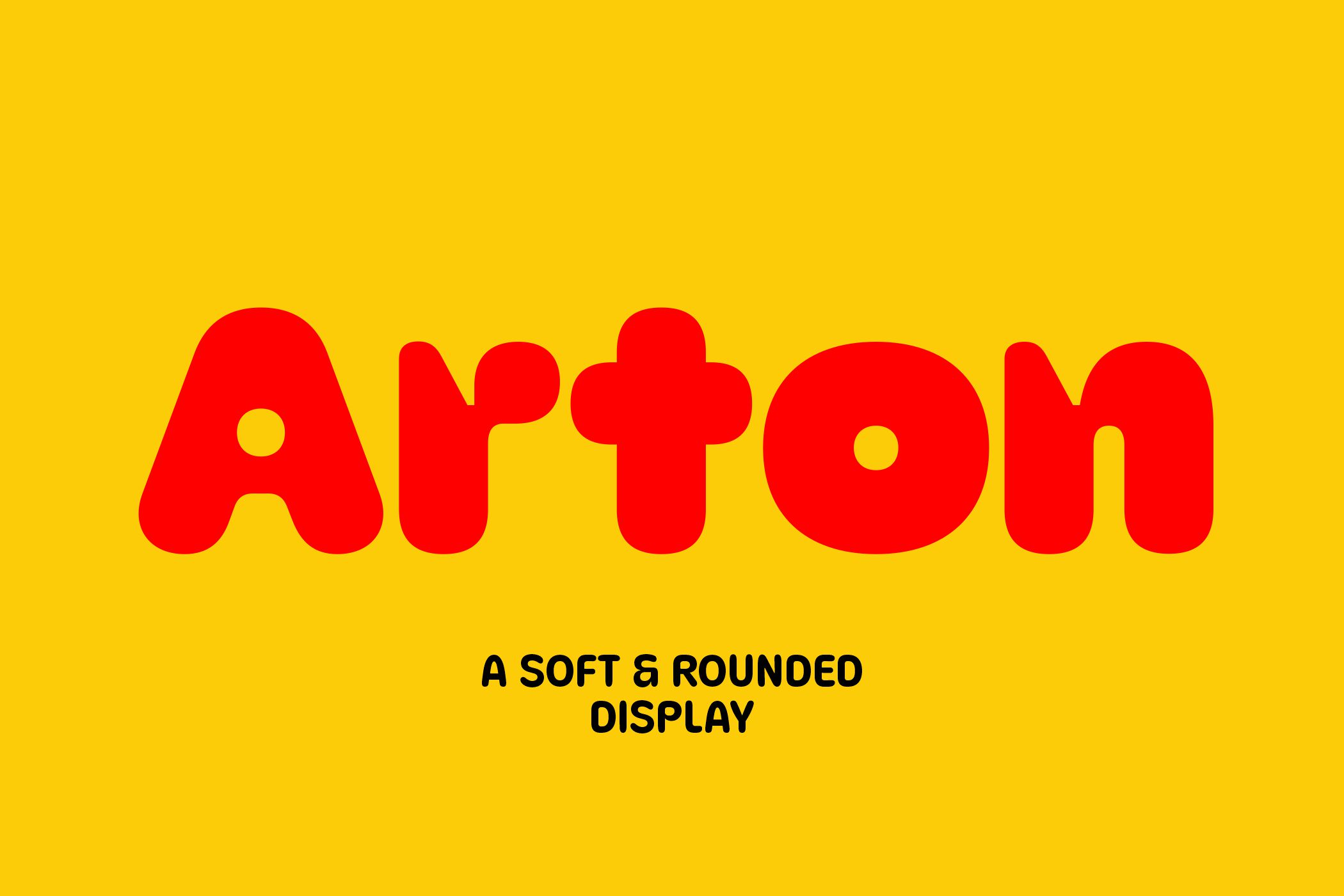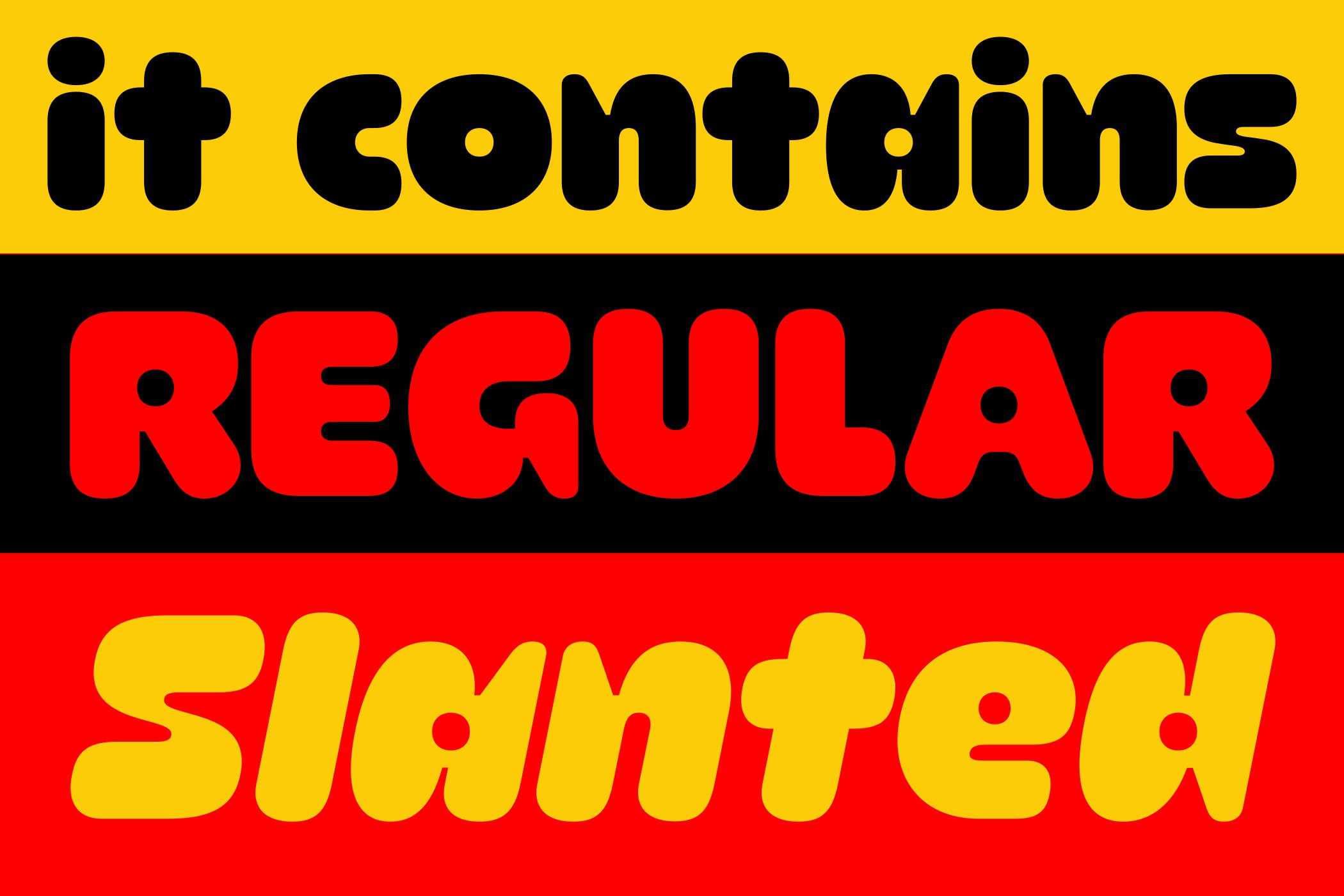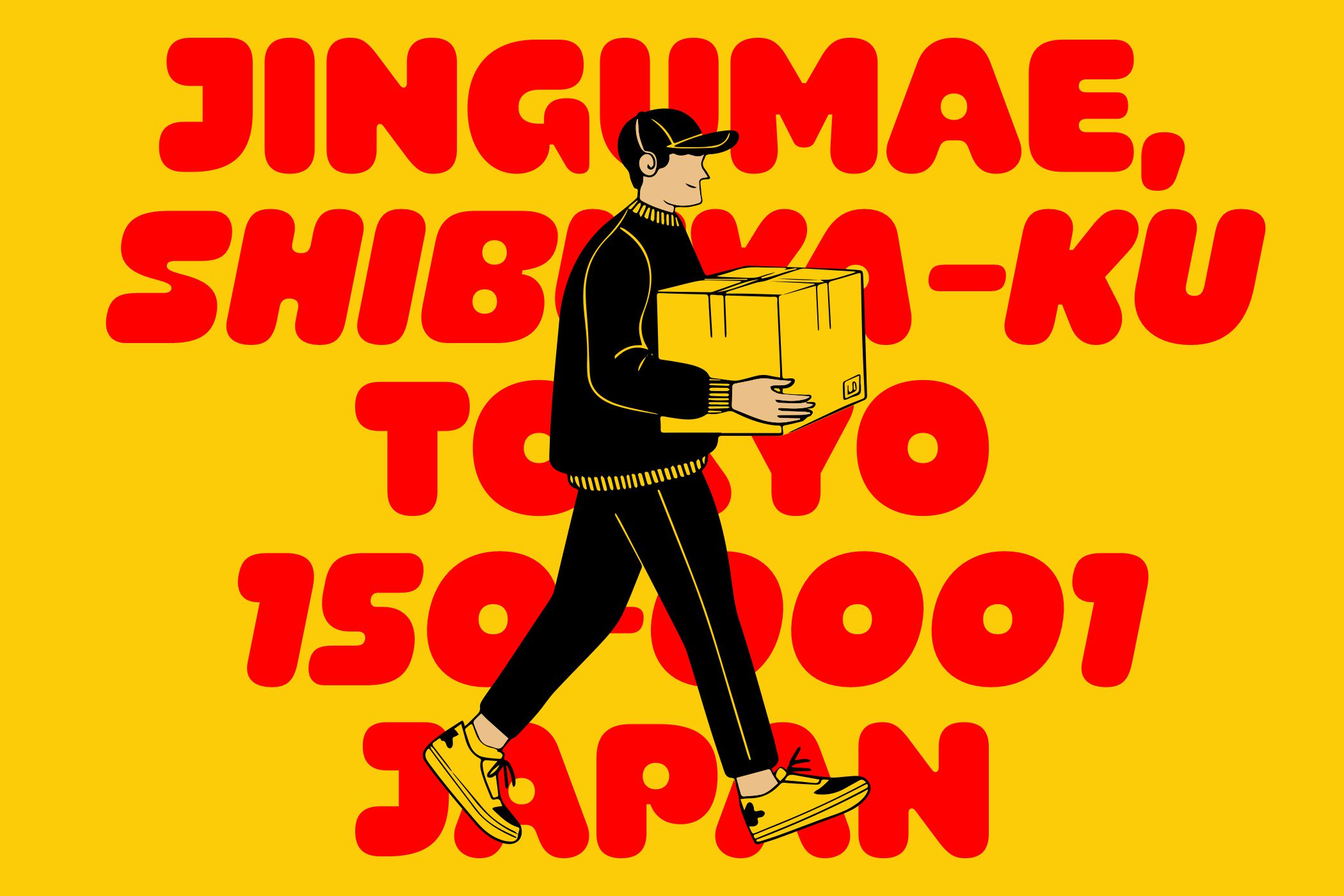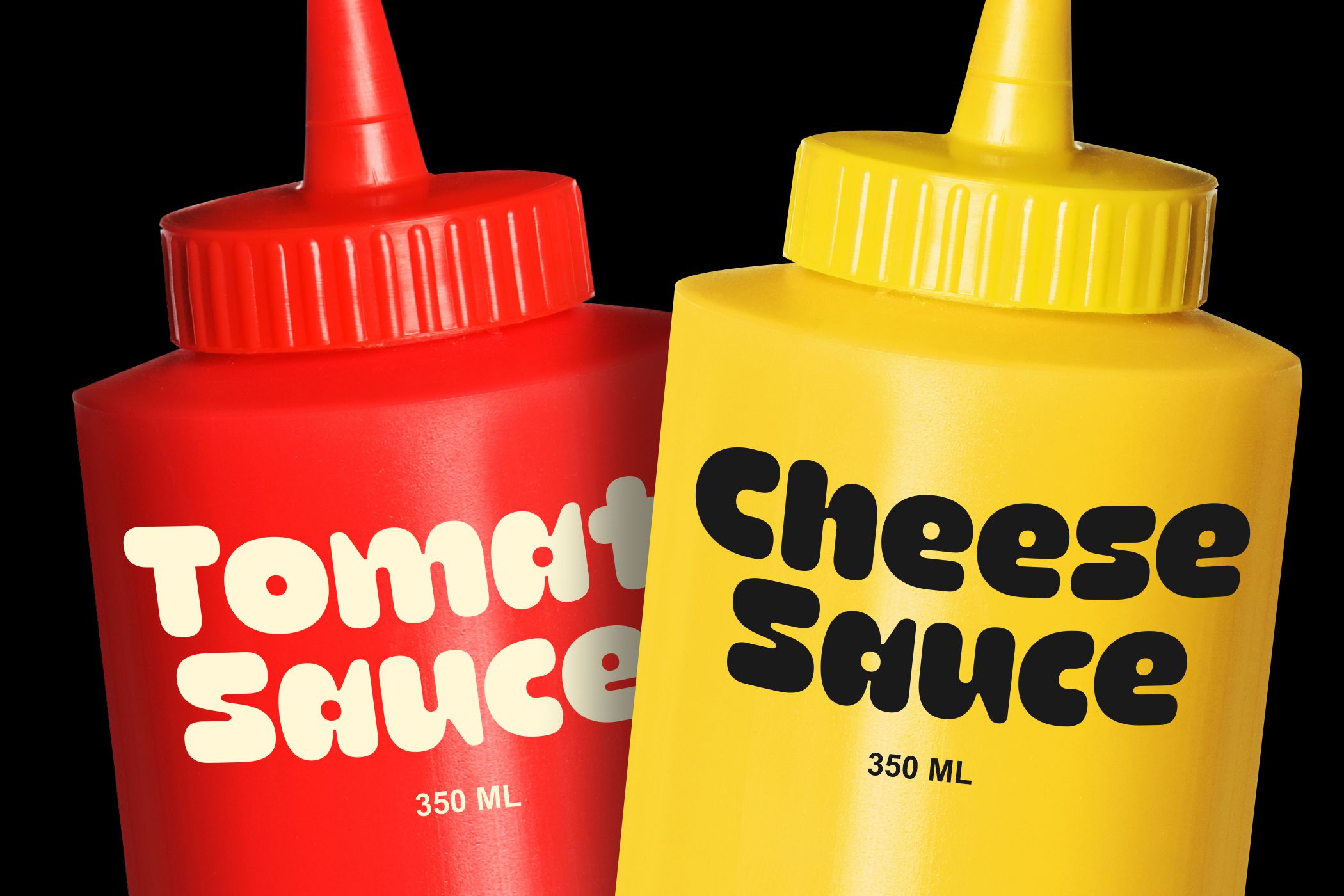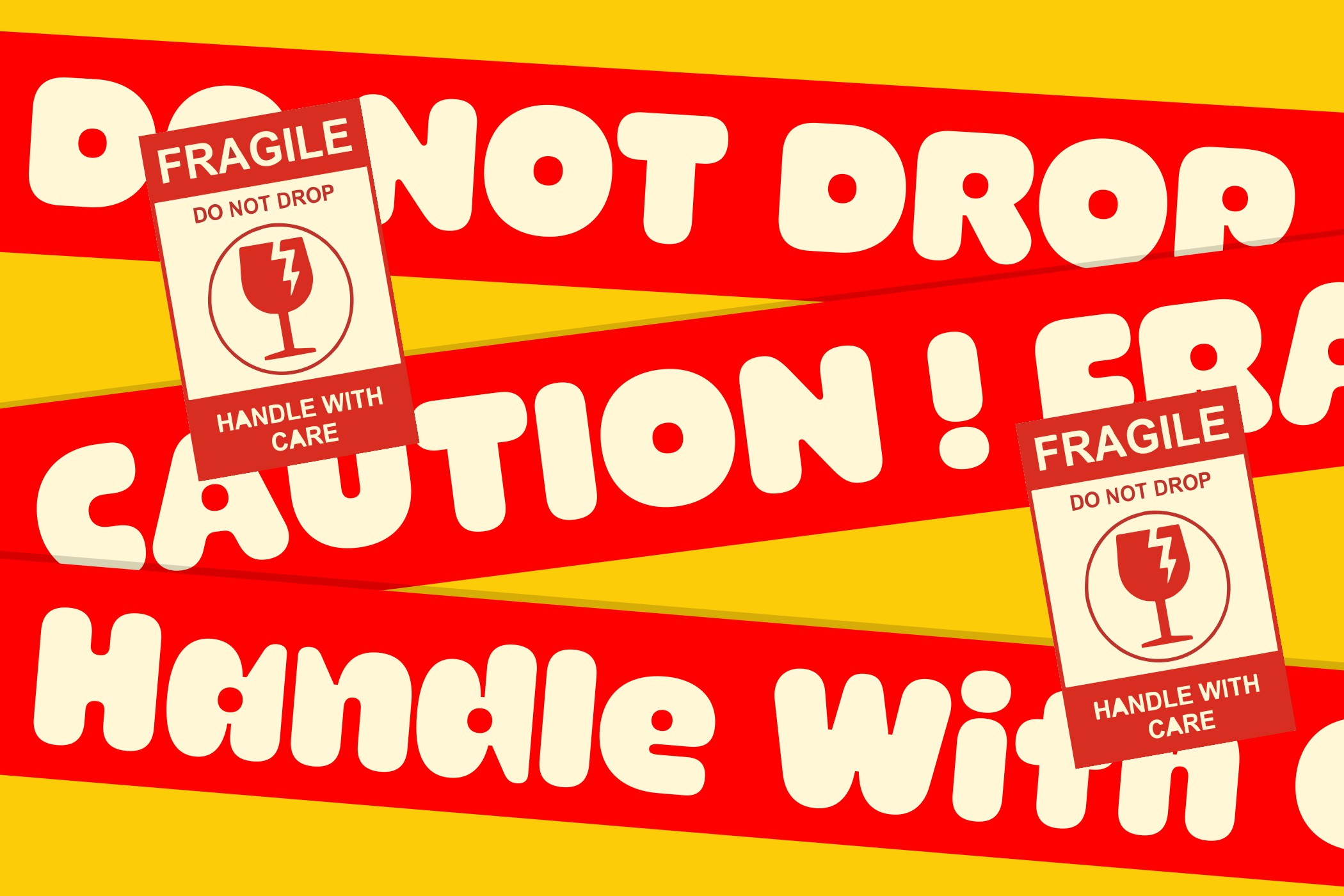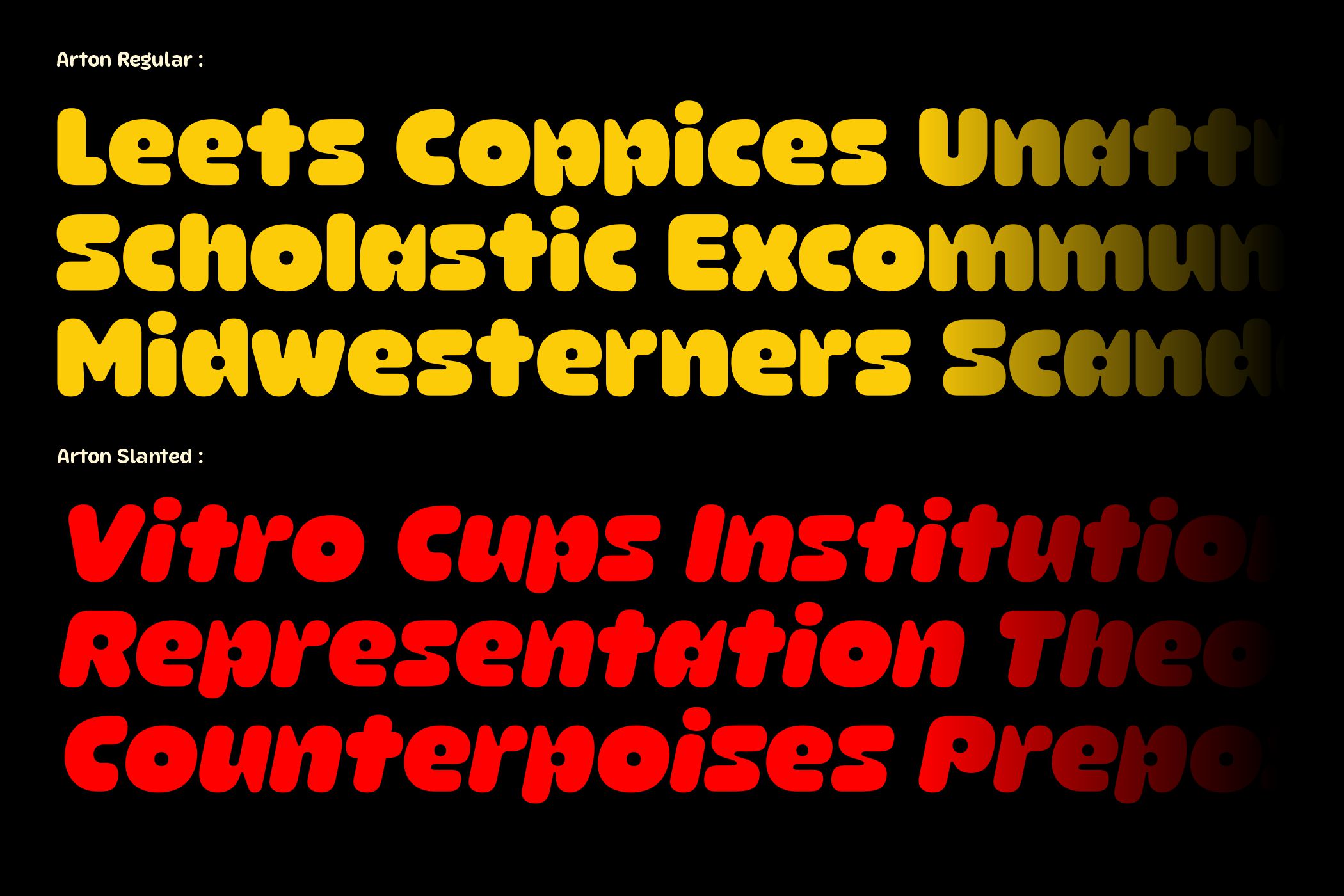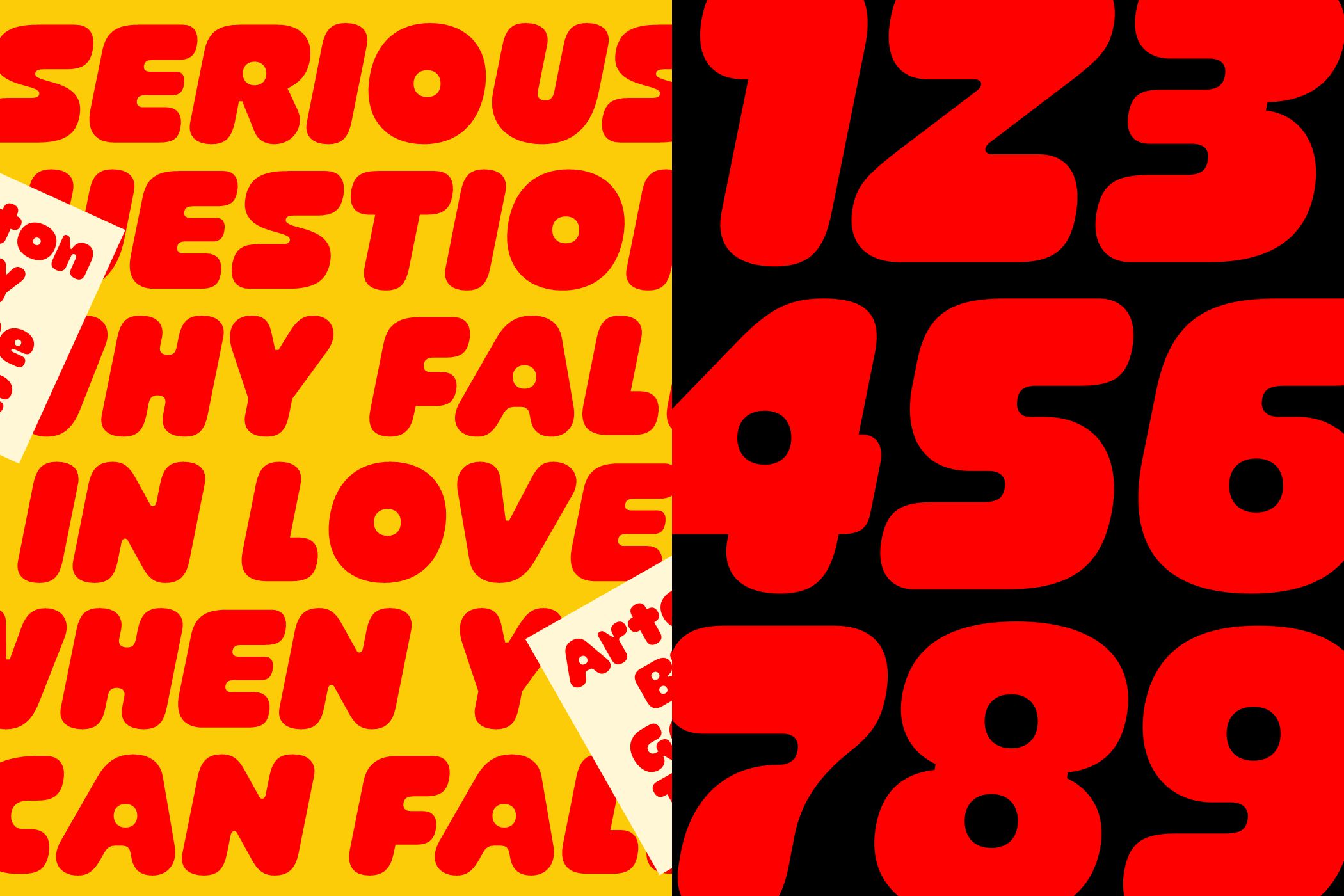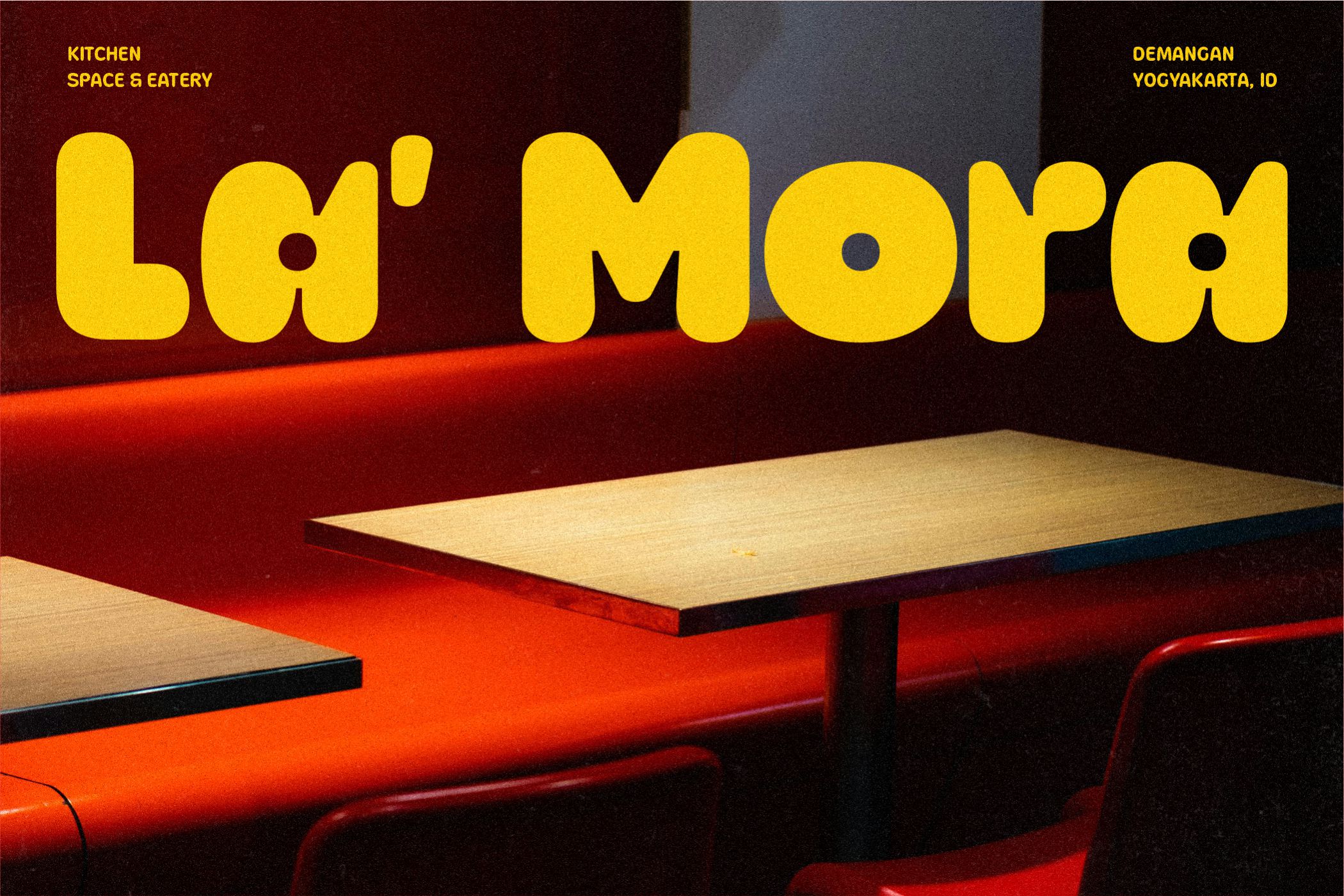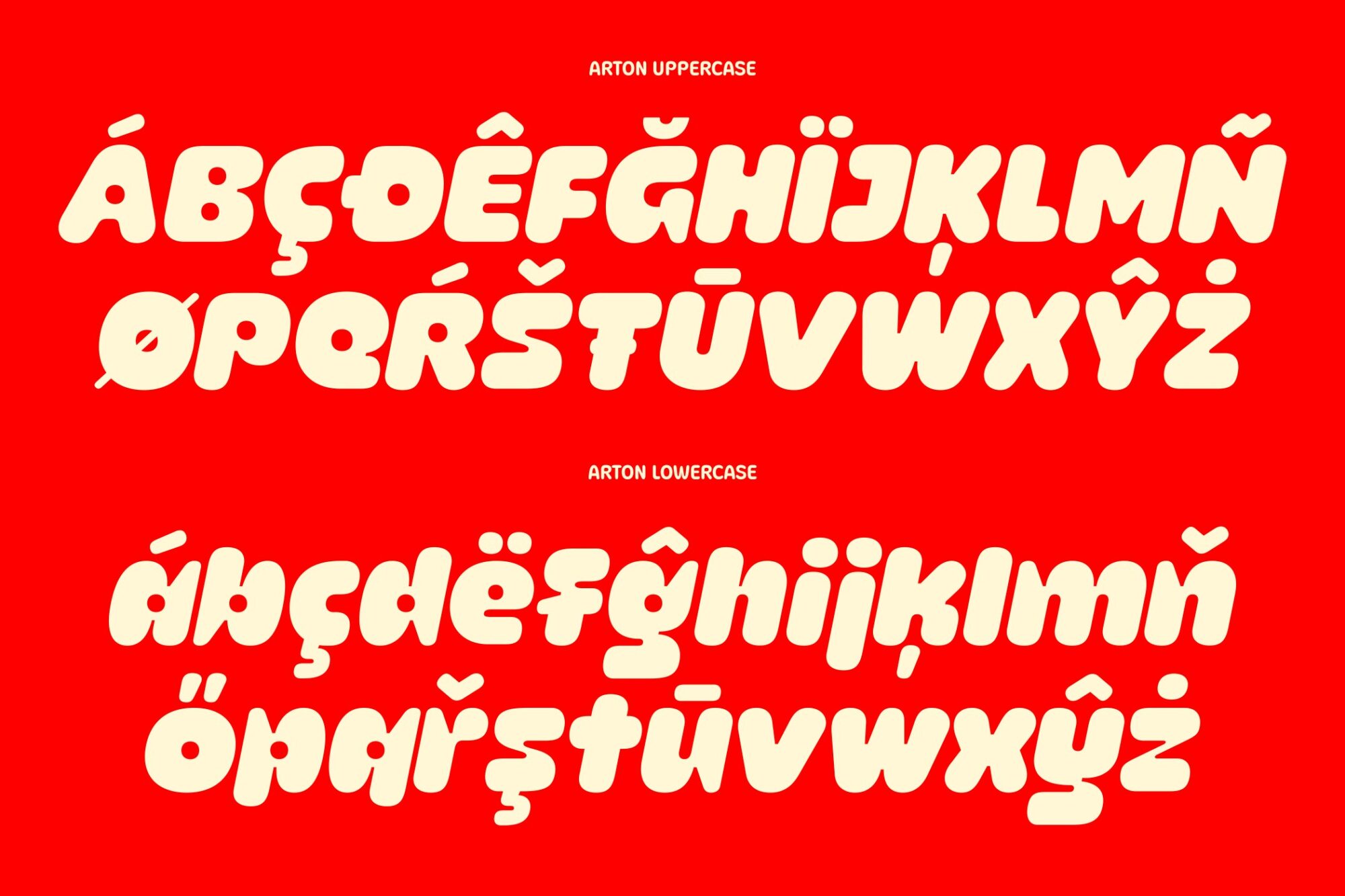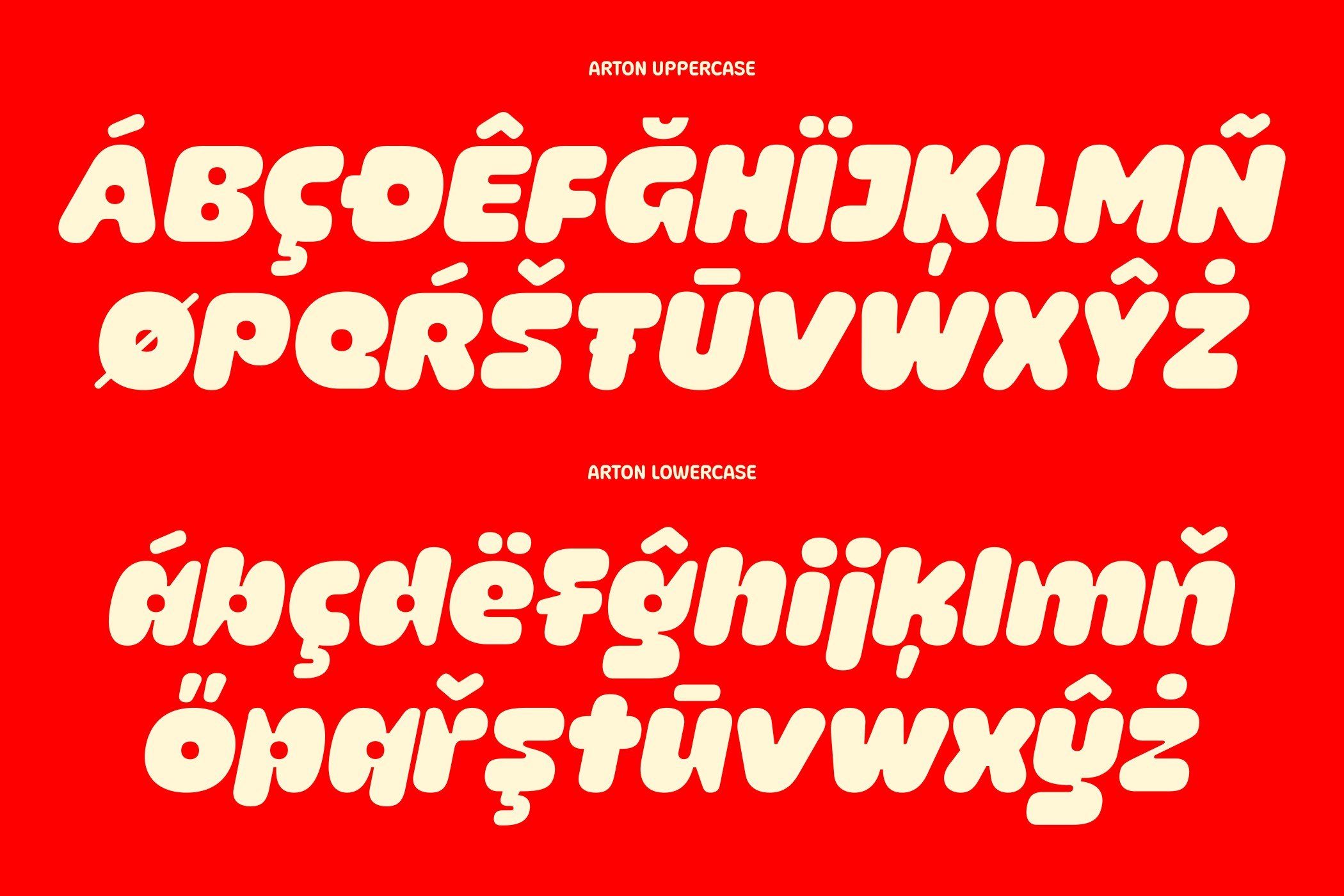
Arton – Rounded Playful Display Font
A soft and chunky rounded display font with a friendly personality — perfect for headlines, branding, posters, packaging, and fun creative designs.
Introducing Arton – Rounded Playful Display Font
Arton is a bold rounded display font designed to bring warmth, fun, and personality to your typography. Its smooth curves and chunky shapes create a friendly, playful look that instantly catches attention while staying clear and readable.
Perfect for branding, logos, posters, packaging, kids products, and social media graphics, Arton adds a cheerful and energetic vibe to any design. The font includes uppercase, lowercase, numerals, punctuation, and multilingual support, making it versatile for many creative projects.
Whether you’re creating playful branding or eye-catching headlines, Arton helps your designs stand out with a modern and friendly style.
Arton Display
Arton is A soft and chunky rounded display font with a friendly personality — perfect for headlines, branding, posters, packaging, and fun creative designs.